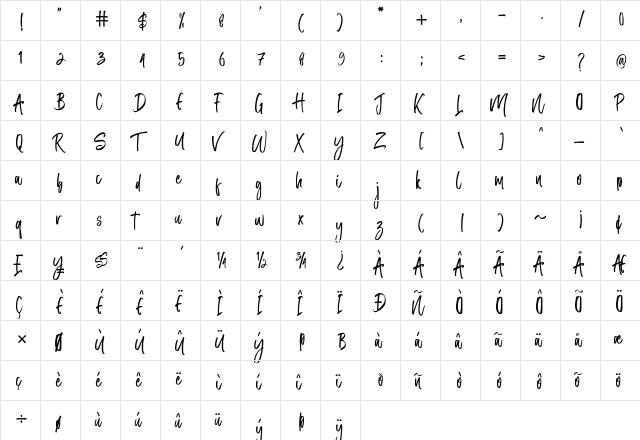
Ratherbe Regular
| Foundry | Zane Studio |
| Designer | Murzani |
Design Context for Ratherbe Typeface
Ratherbe is a composed and adaptable typeface that performs quietly and consistently across a wide range of design contexts.